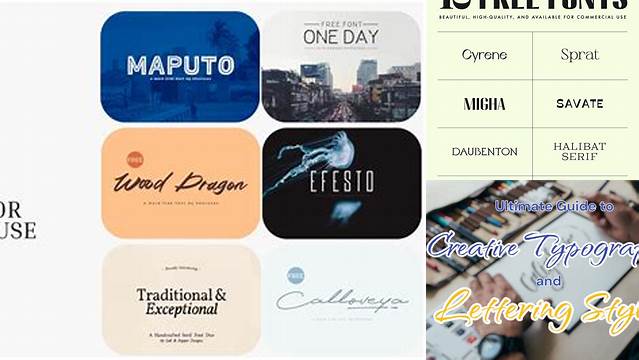
Free Use Fonts Commercially: Your Ultimate Guide
Hey there, design enthusiasts! Ever wondered about the world of fonts and how to use them in your commercial projects without running into trouble? Well, you're in the right place! This guide is all about free use fonts commercially, ensuring you can find the perfect typography for your business, brand, or project without breaking the bank or getting into legal woes. We'll dive deep into what makes a font "free for commercial use", where to find these gems, and how to use them effectively to make your designs pop.
Understanding Free Use Fonts for Commercial Purposes
First things first, let's clarify what "free for commercial use" actually means, guys. It’s super important because the wrong font license can lead to some serious headaches. Basically, a font that is free for commercial use allows you to incorporate it into projects that generate revenue or are used in a business context. This includes everything from website designs, logos, marketing materials, to products you sell. However, the specifics can vary, and that's where understanding the license becomes crucial.
When you come across a font described as free for commercial use, it typically means you can use it without paying a royalty fee to the font designer or foundry. However, it's never a bad idea to double-check the license agreement to ensure you understand any limitations or restrictions. For instance, some licenses might require you to give credit to the font designer, while others might restrict the number of uses or the type of commercial application. Always carefully read the license terms before you start using a font, guys, it's the best way to protect yourselves. Also, keep an eye out for different license types, like the SIL Open Font License (OFL) and the Apache License, which are common for free, commercially usable fonts. These licenses typically provide broad permissions for use, modification, and even redistribution, but it's always best to be sure.
Moreover, the term "free" doesn't always mean it's completely without conditions. Sometimes, a font might be free for personal use but require a license or payment for commercial applications. Other times, you might find "freemium" fonts, where a basic version is free, but you need to pay for a more extensive version with additional features or characters. The key is to be diligent and always verify the license to understand the exact conditions of use and if you are allowed to use these fonts commercially.
Finally, never assume that a font is free just because you found it online. Always get your fonts from reputable sources that clearly state the license terms. Fonts found on random websites or in places with unclear licensing can lead to legal issues. Always make sure you're getting your fonts from a reliable source!
Where to Find Amazing Free Fonts for Commercial Use
Now that we know the basics, let's get to the fun part: where to find these awesome free fonts! Luckily, there are tons of amazing websites and resources that offer a vast selection of fonts perfect for commercial use. Here's a list of some of the best places to kick off your font search:
- Google Fonts: This is the go-to for many designers, and for a good reason. Google Fonts offers a massive library of open-source fonts, all of which are free to use for commercial purposes. The best part? They're super easy to integrate into your website. Plus, with such a wide variety of styles, you're bound to find something that suits your needs.
- Font Squirrel: Font Squirrel is another excellent resource for finding high-quality free fonts. They carefully curate their collection, ensuring that all fonts are free for commercial use. They also have a handy font identifier tool, which can help you identify fonts you see in other designs.
- DaFont: While DaFont has a huge collection, it’s really important to pay close attention to the license for each font. Not all fonts on DaFont are free for commercial use, so always check the license info before you download. But with proper filtering, you can find some real gems.
- Behance and Dribbble: Platforms like Behance and Dribbble are not only great for inspiration but also as font repositories. Designers often share their free fonts or links to where you can download them. Just make sure to check the licenses before you use them.
- Font Bundles and Creative Market: While these marketplaces are primarily for premium fonts, they often have free font bundles or individual free fonts that you can download. This is a great way to grab some quality fonts without spending money.
- Typewolf: Typewolf is a website dedicated to typography and font pairing. They have a section where they showcase free fonts used on the web. It's a great place to find inspiration and see how free fonts can be used in real-world designs.
When you are browsing these sites, it's good to consider what your project is and what style it needs. A modern website might benefit from a clean sans-serif font, while a vintage design could be enhanced by a serif font. Also, remember to check the character set of the font to make sure it includes the characters you need, like special symbols, and international characters. Finally, always download fonts from the official source or the designer's website to ensure you get the correct license and avoid potential malware.
To stay on top of these trends, stay curious, and keep exploring. Keep up with design blogs and follow font foundries and designers on social media. Subscribe to design newsletters to get updates on new font releases and design tips. The more you learn, the better equipped you'll be to navigate the exciting world of free commercial fonts! In the ever-changing design landscape, staying informed is your best asset. Now get out there and start designing, you awesome people!